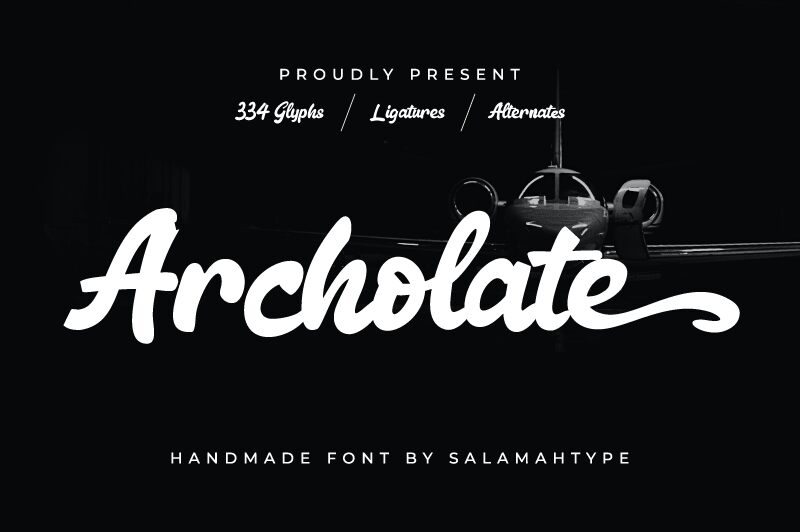
Archolate is a smooth brush font created by Salamahtype.com with a bold weight. It is ideal for titles and headlines, featuring an elegant yet playful feel. This font works great for projects that need an eye-catching touch, such as magazines, posters, logos, and invitations. It's also perfect for adding character to social media posts and website designs. Archolate will bring your creative vision to life!